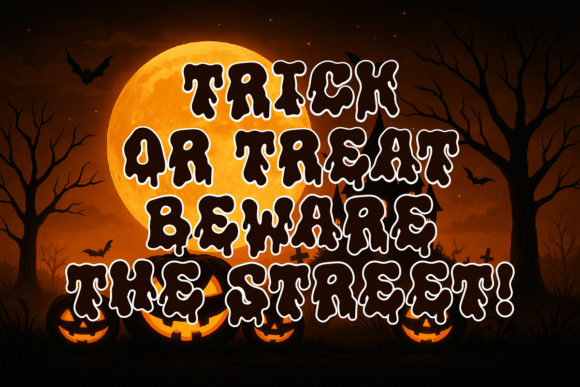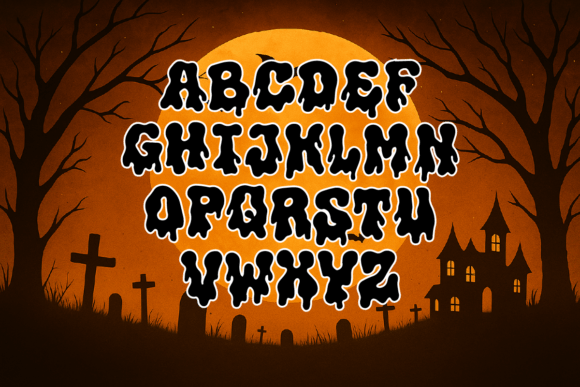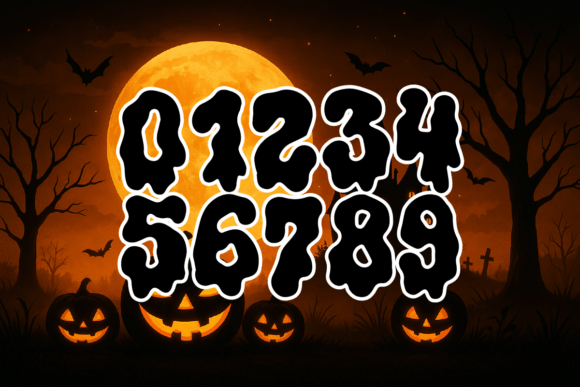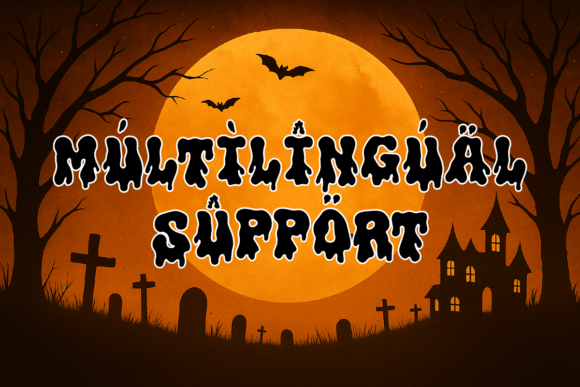
Introduction to Hexed Letters Font
Hexed Letters is a professionally crafted horror display typeface designed to deliver a bold, eerie, and highly expressive visual impact.
Characterized by its dripping, melting letterforms, this typeface captures the essence of classic Halloween themes while maintaining modern design clarity and strong readability Perfect for designers seeking a distinctive spooky aesthetic, Hexed Letters adds instant character and atmosphere to any project.
Key Features of Hexed Letters Font
Why Choose Hexed Letters Font?